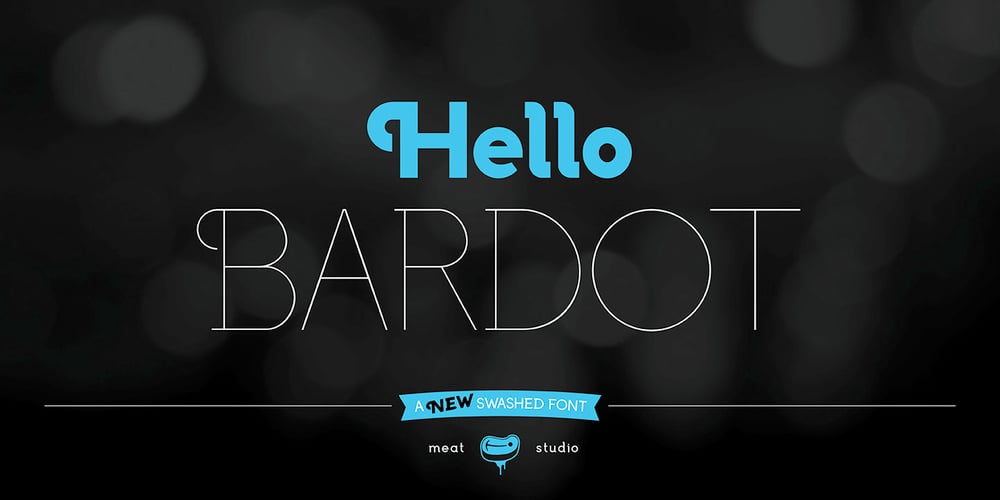
Bardot Font Family was designed by Stew Deane and published by Meat Studio. Bardot contains 3 styles and family package options. Bardot is a versatile swashed type family that combines modern elegance with technical structure. It features swashed alternate caps, as well as various ligatures and alternative characters. Uppercase swash alternates can be applied to all characters or just the first of each word. These alternates can be accessed easily through any OpenType-enabled application for specific needs. Bardot works best as a display font at large sizes but is equally adept to paragraphs of text or small pull quotes. Graceful, curvaceous and attention seeking, Bardot offers elegance and charm in abundance.